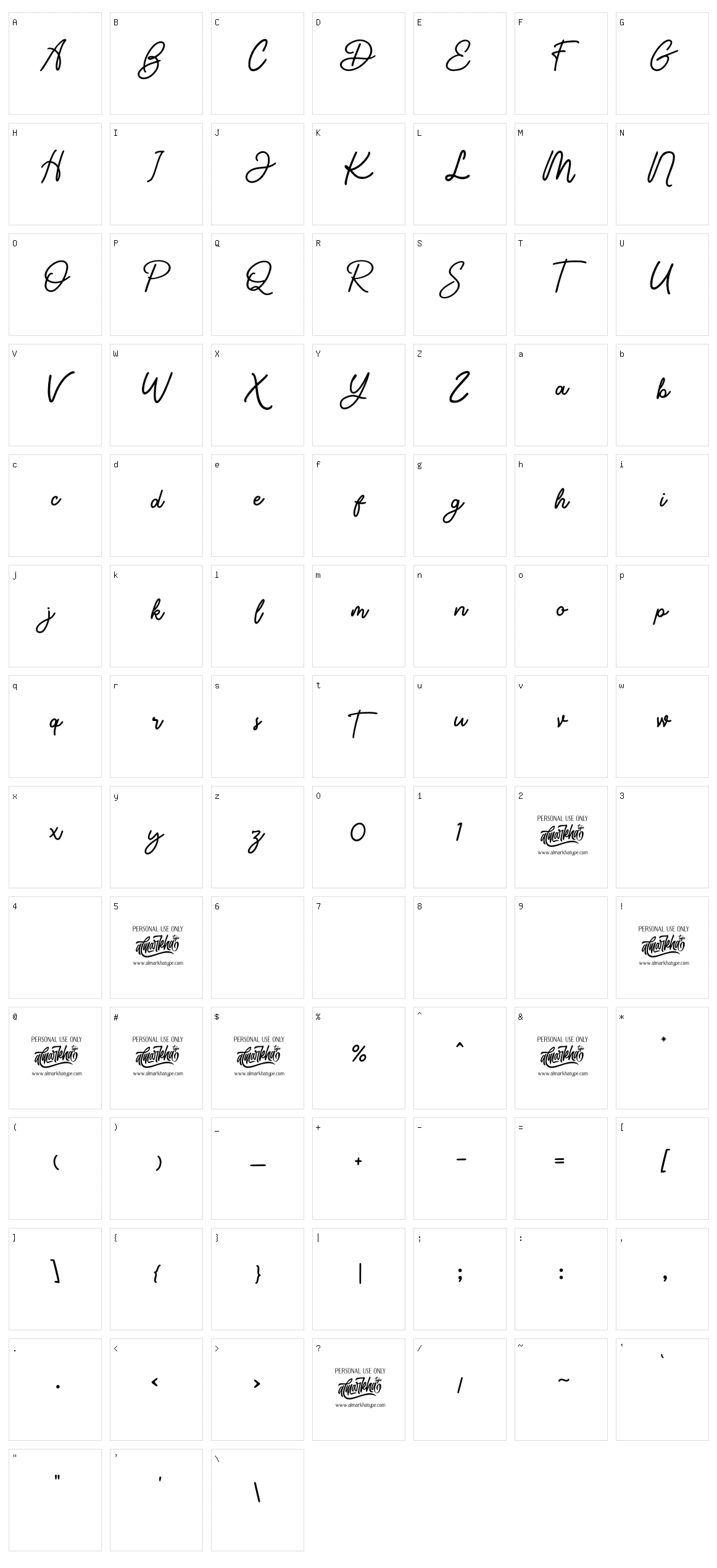
The free font Rostemary is carefully designed by Almarkhatype, showcasing a thoughtful balance of creativity and usability and falls under the Script font style. When you download the ZIP file, it contains only 492.18 KB of font files, making it lightweight and quick to download. Please review the license details below to understand permitted usage and distribution rights. If license information is not available, we recommend using this font for personal projects only or contacting the author directly for commercial usage permissions.